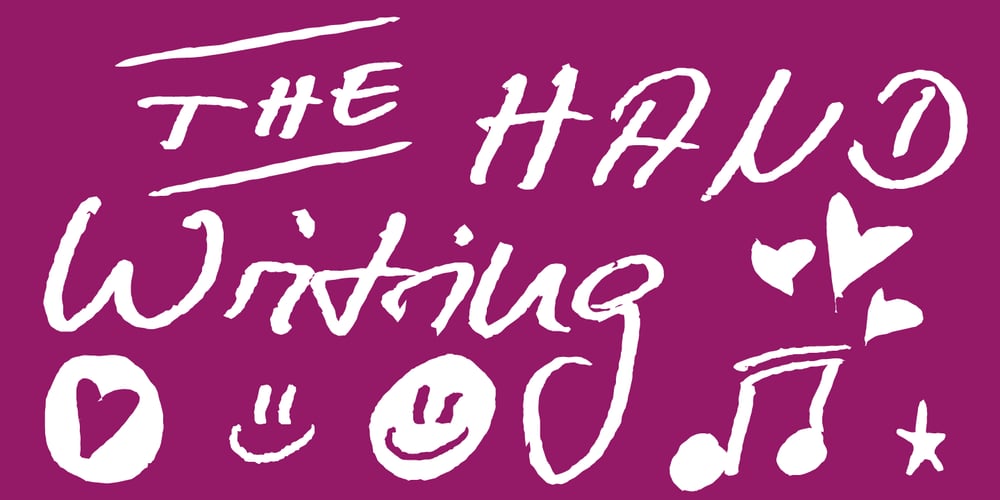
Hand Writing of Janina Font Family was designed by Manuel Viergutz and published by TypoGraphicDesign. Hand Writing of Janina contains 8 styles and family package options. The typeface Hand Writing of Janina is designed from 2021 for the font foundry Typo Graphic Design by Janina Fels & Manuel Viergutz.The character of the handwritten script typeface is rough, ruggend and raw. With state-of-the-art OpenType-Feature (like Contextual Alternates (calt) and Stylistic Alternates (salt)). Each uppercase and each lowercase letter has automatically alternated two variations to bring humanly-random characteristics of handwriting to life.4 font-styles (Book, Bold, Dark & Icons) with 786 glyphs (Latin 3) incl. 100+ decorative extras like icons, arrows, catch words, dingbats, emojis, symbols, geometric shapes (type the word #LOVE for ♥︎ or #SMILE for ☺ as OpenType-Feature dlig) and stylistic alternates.For use in logos, magazines, posters, advertisement plus as webfont for decorative headlines. The font works best for display size.Have fun with this font & use the DEMO-FONT (with reduced glyph-set) FOR FREE!Font Specifications■ Font Name: Hand Writing of Janina ■ Font Styles: 4 font-styles (Book, Bold, Dark, Icon) + DEMO (with reduced glyph-set) ■ Font Category: Display Script for headline size ■ Font Format: .otf (Mac + Win, for Print) + .woff (for Web) ■ Glyph Set: 786 glyphs (Latin 3 incl. decorative extras like icons) ■ Language Support: 93 languages: Afrikaans, Albanian, Asu, Basque, Bemba, Bena, Breton, Catalan, Chiga, Colognian, Cornish, Croatian, Czech, Danish, Dutch, Embu, English, Esperanto, Estonian, Faroese, Filipino, Finnish, French, Friulian, Galician, Ganda, German, Gusii, Hungarian, Inari Sami, Indonesian, Irish, Italian, Jola-Fonyi, Kabuverdianu, Kalenjin, Kamba, Kikuyu, Kinyarwanda, Latvian, Lithuanian, Lower Sorbian, Luo, Luxembourgish, Luyia, Machame, Makhuwa-Meetto, Makonde, Malagasy, Maltese, Manx, Meru, Morisyen, Northern Sami, North Ndebele, Norwegian Bokmål, NorwegianNynorsk, Nyankole, Oromo, Polish, Portuguese, Quechua, Romanian, Romansh, Rombo, Rundi, Rwa, Samburu, Sango, Sangu, Scottish Gaelic, Sena, Serbian, Shambala, Shona, Slovak, Soga, Somali, Spanish, Swahili, Swedish, Swiss German, Taita, Teso, Turkish, Upper Sorbian, Uzbek (Latin), Volapük, Vunjo, Walser, Welsh, Western Frisian, Zulu ■ Design Date: 2021 ■ Type Designer: Janina Fels, Manuel Viergutz